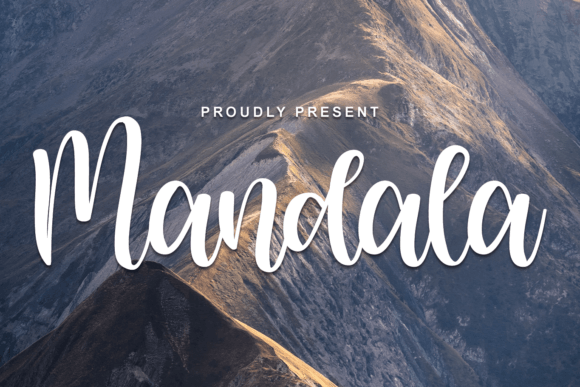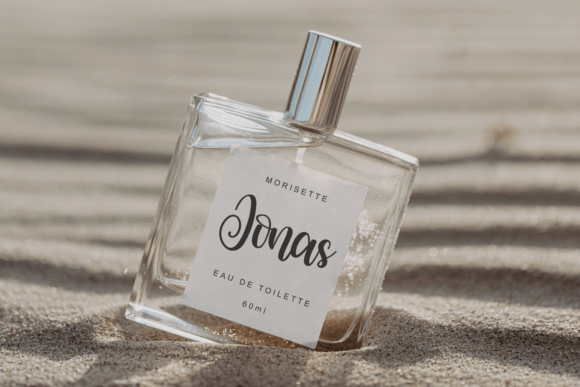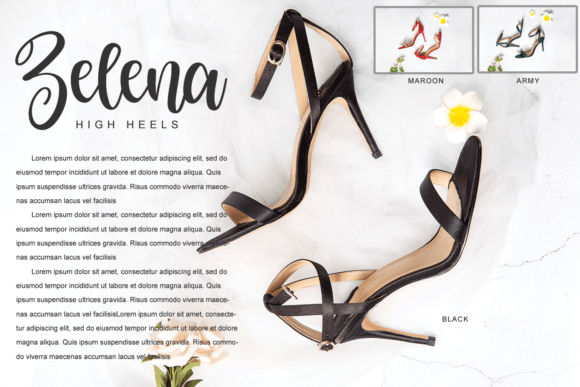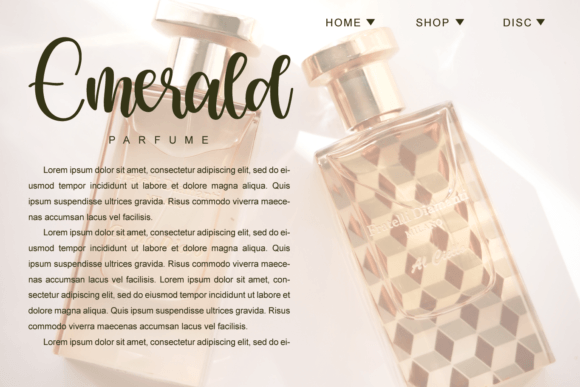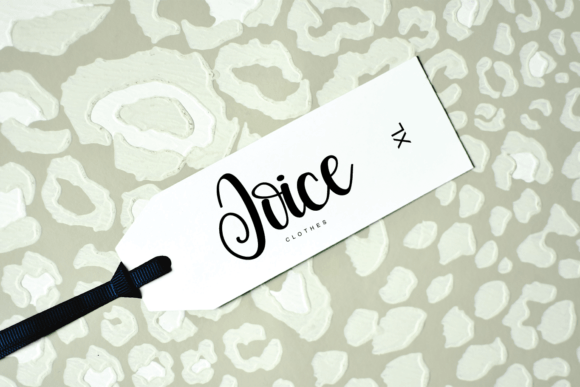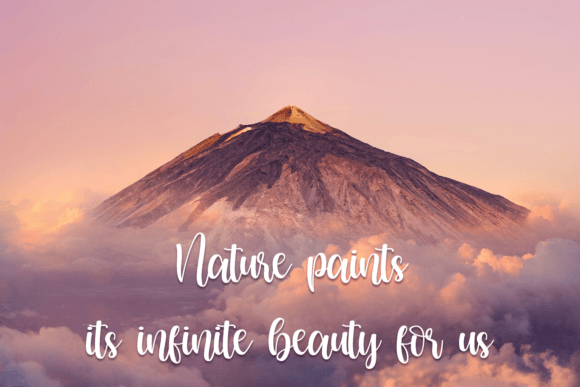
Mandala Font
Mandala: An Elegant Handwritten Font for High-End Creative Projects
Introducing Mandala, an elegant handwritten font that seamlessly blends timeless calligraphy with modern design. Carefully crafted with exquisite detail, Mandala is perfect for creatives who seek beauty, grace, and sophistication in their typography.
With its refined letterforms and flowing strokes, Mandala offers a premium handwritten aesthetic that enhances everything from formal invitations to upscale branding materials. If you’re searching for a stylish typeface to elevate your work, Mandala is a top-tier choice.
A Font That Reflects Elegance and Expression
Mandala draws its inspiration from classic calligraphy while embracing a clean, modern twist. The result is a stunning handwritten script that looks graceful, artistic, and undeniably professional.
This elegant handwritten font is a perfect fit for:
• Wedding invitations and stationery
• Personal and luxury branding
• High-end product packaging
• Fashion logos and beauty labels
• Inspirational quote designs
• Downloadable planners and digital products
Its balance of delicacy and legibility ensures your message is delivered with clarity and class.
Why Designers Choose Mandala Font
What sets Mandala apart is its ability to feel timeless and contemporary at the same time. The soft curves, delicate flourishes, and expertly spaced characters make it a pleasure to work with across all types of design projects.
Here’s why designers love Mandala:
• Calligraphy-inspired strokes for a classy, handwritten look
• Consistent flow and spacing for better readability
• Ideal for both print and digital use
• Elegant enough for weddings, strong enough for logos
• Pairs well with serif or sans-serif typefaces
Whether used as a main header or an accent font, Mandala adds instant sophistication.
Perfect for Stylish and Professional Projects
Whether you’re designing romantic stationery or building a luxury brand identity, Mandala has the visual presence to make your work shine. Its graceful appeal brings emotional depth to designs while maintaining a clean and refined look.
Top use cases include:
• Bridal shower and baby shower invitations
• Perfume, skincare, or boutique product labels
• Printable art and digital calligraphy downloads
• Fashion editorials and blog headlines
• Elegant logos for premium brands
If you want your design to stand out with class and charm, Mandala is the font to choose.
For those who value beauty and elegance in design, Mandala is an essential addition to your font collection. This elegant handwritten font not only looks stunning but also brings emotional warmth and creative flair to every project.